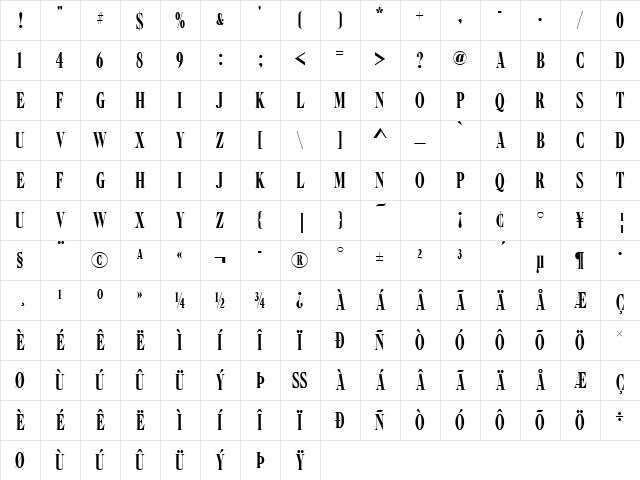
Complete Caslon Becker Graphique Comp Regular glyph index. Displaying only characters natively supported by Caslon Becker Graphique Comp Regular font.
Caslon Becker Graphique Comp is a composed and adaptable typeface that performs quietly and consistently across a wide range of design contexts.